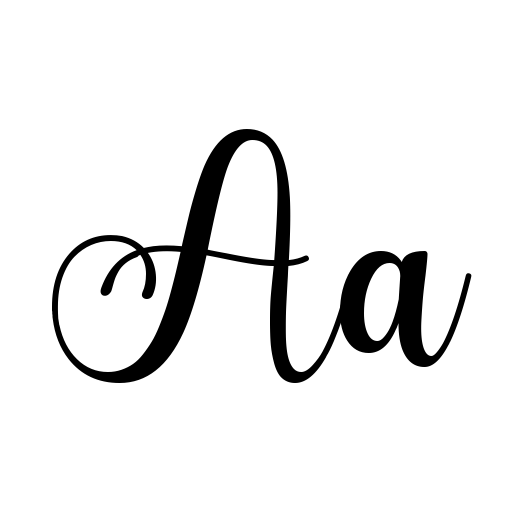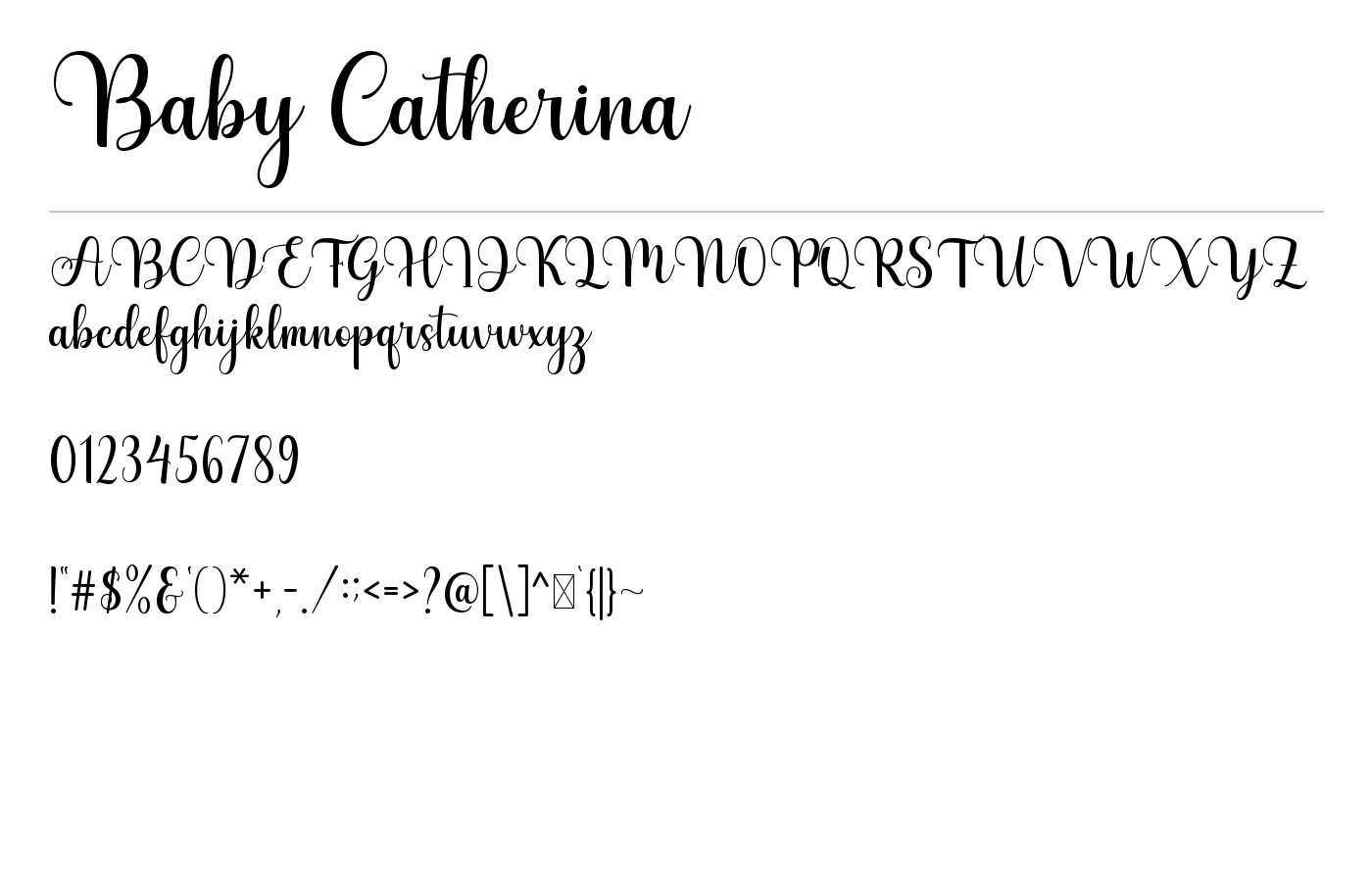
Baby Catherina is an elegant script font that combines graceful, flowing uppercase letters with a more solid and readable lowercase set, making it both decorative and practical. Its tall, slender letterforms with smooth curves and moderate contrast evoke a sophisticated, feminine charm, ideal for wedding invitations, branding, and other stylish design projects that seek a refined and romantic touch. This font works beautifully in headlines and short text where an inviting yet polished personality is desired.
Baby Catherina Font
About Baby Catherina Font